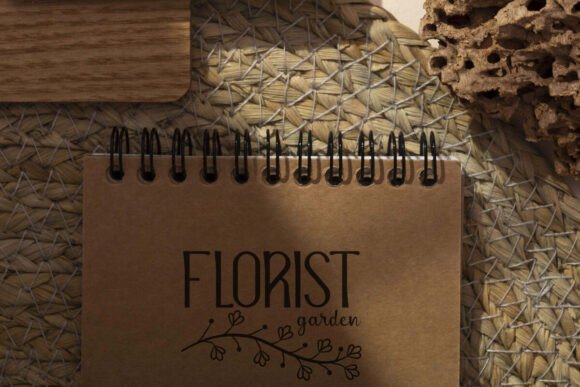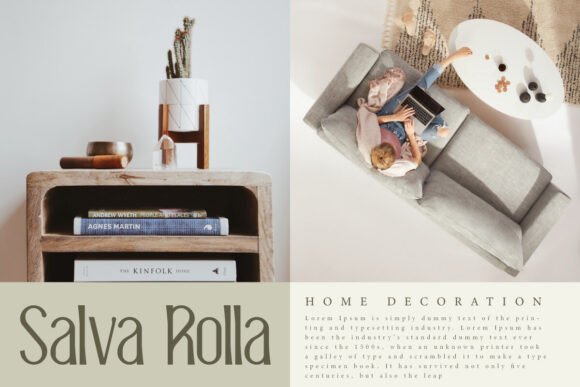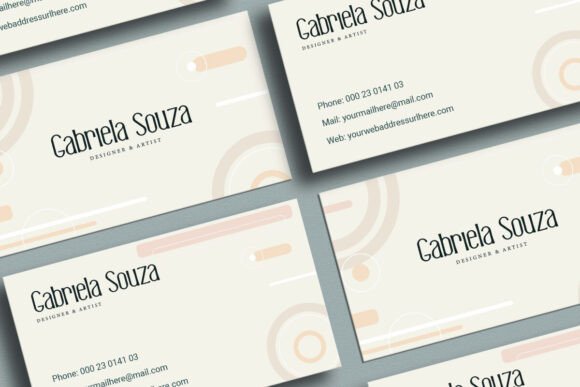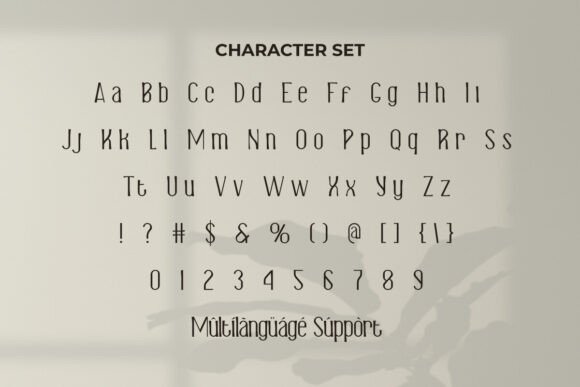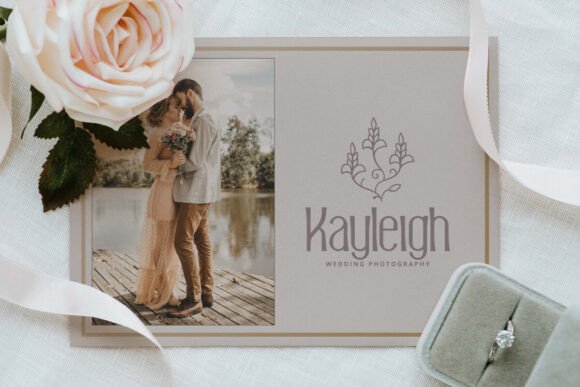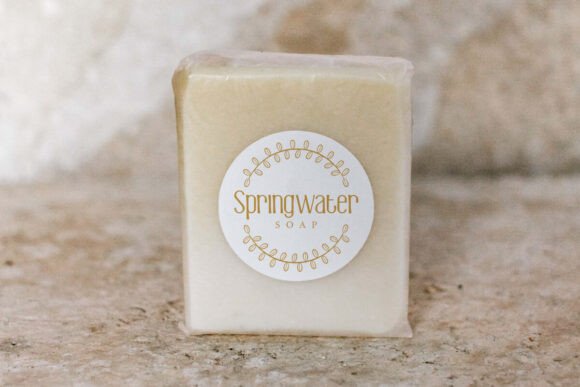
Introduction to Salva Rolla Font
As a designer, have you ever found yourself staring at a blank canvas, eager to bring your creative project to life? The perfect font can make all the difference, transporting your vision from a mere idea to a stunning reality. And that’s exactly what the Salva Rolla Font does – it elevates your design game with its sleek, modern aesthetic.
With its slim shape and tall writing effect, the Salva Rolla Font is the ultimate design resource for any creative project. Whether you’re a graphic designer, event organizer, or fashion enthusiast, this high-quality font is sure to leave a lasting impression. And the best part? It’s now available for free download, making it an accessible addition to your design arsenal.
Imagine being able to add a touch of sophistication and elegance to your designs with just a few clicks. The Salva Rolla Font makes this possible, with its transparent background allowing for seamless integration into any design. Whether you’re working on a branding project or creating promotional materials, this versatile font is sure to become a trusted design companion.
Key Features of Salva Rolla Font
- High-quality design resource ideal for creative projects and presentations.
- Unique, hand-drawn design with a modern and elegant feel.
- Available in a single size, making it easy to use across various design projects.
Honest Review: Salva Rolla Font
I recently stumbled upon the Salva Rolla Font, and I must say it’s been a game-changer for my creative projects. This free download has been a valuable addition to my design resource library.
- High-quality font with crisp and clear typography ✨
- Transparent background, making it easy to use in various design contexts ✨
- Perfect for creating eye-catching headlines and titles ✨
- Limited character set, which can be a drawback for certain design projects ⚠️
- No bold or italic variants, which can make it harder to create visual hierarchy ⚠️
Overall, I’m impressed with the Salva Rolla Font. It’s a solid choice for designers looking for a high-quality, free font. While it may not be perfect, its strengths outweigh its weaknesses. I’d definitely recommend it to fellow designers looking for a reliable design resource.
The Salva Rolla Font is suitable for various design projects, including logos, branding materials, and social media graphics. Its high-quality design and transparent background make it a versatile resource for designers and non-designers alike.